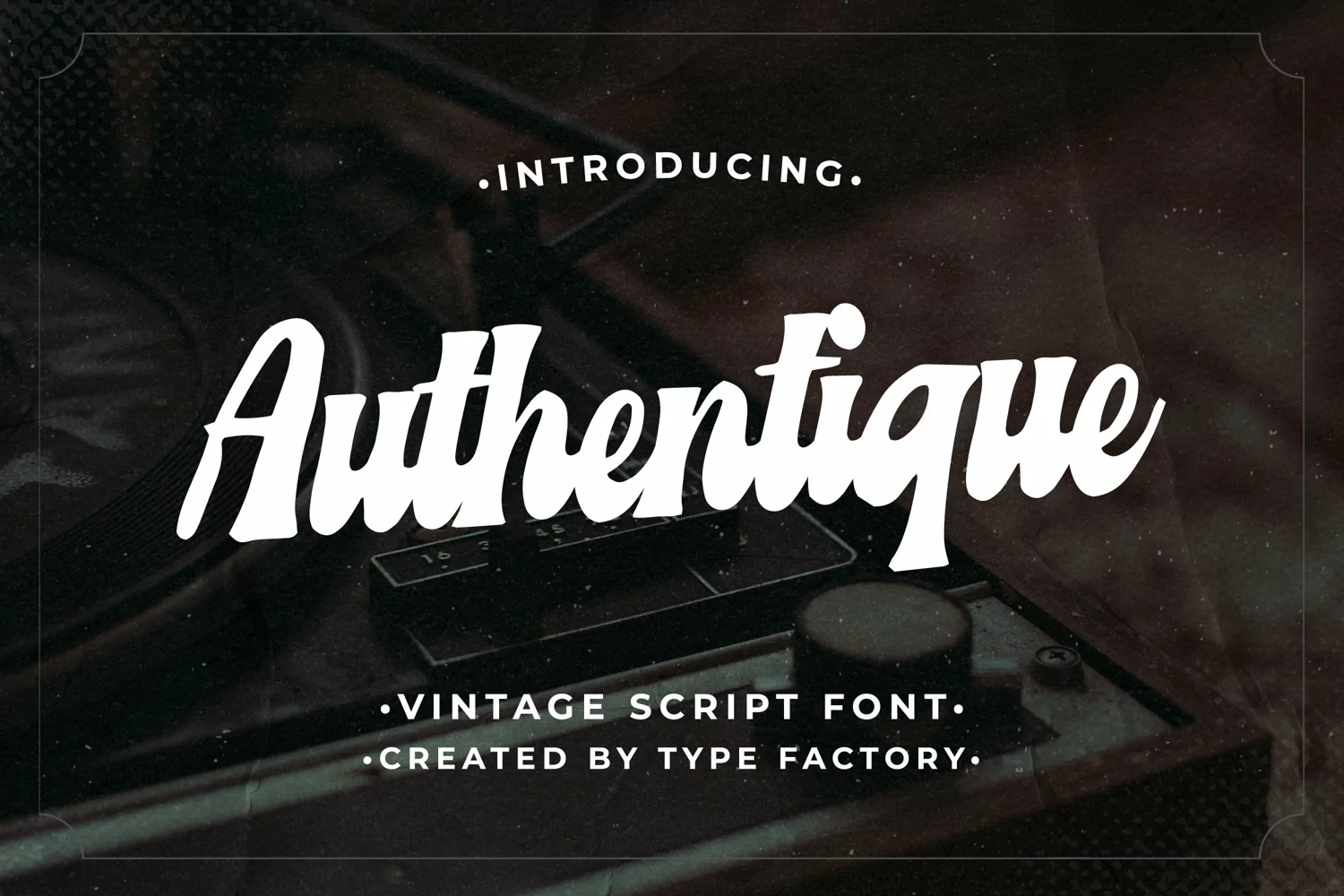
Authentique - Vintage Script
Authentique is a unique vintage script font.
Fall in love with its incredibly versatile style and use it to create wedding invitations, retro stationary art, eye-catching social media posts, label, logos, web, quotes, poster, apparel, workshop and much more!